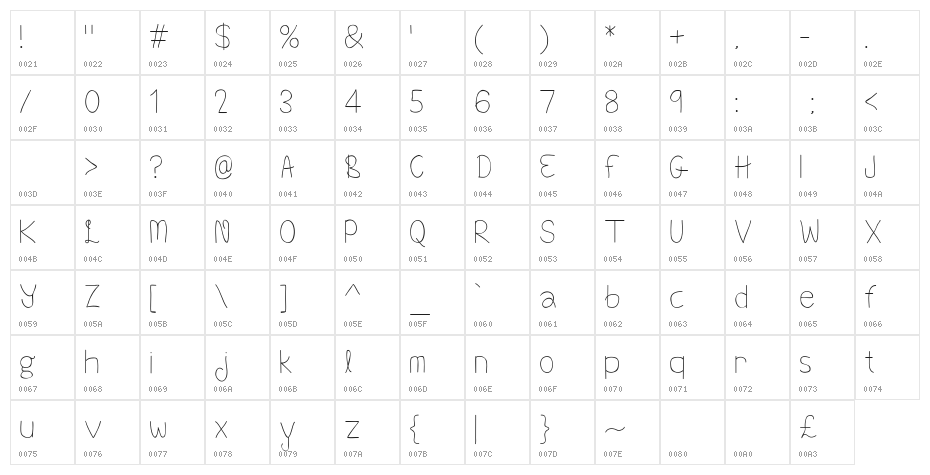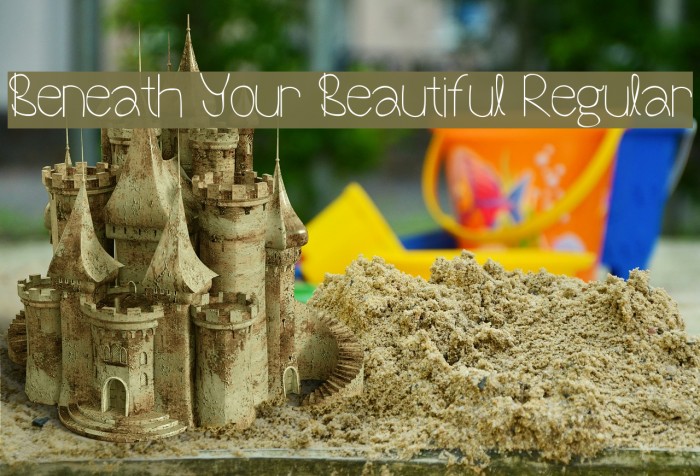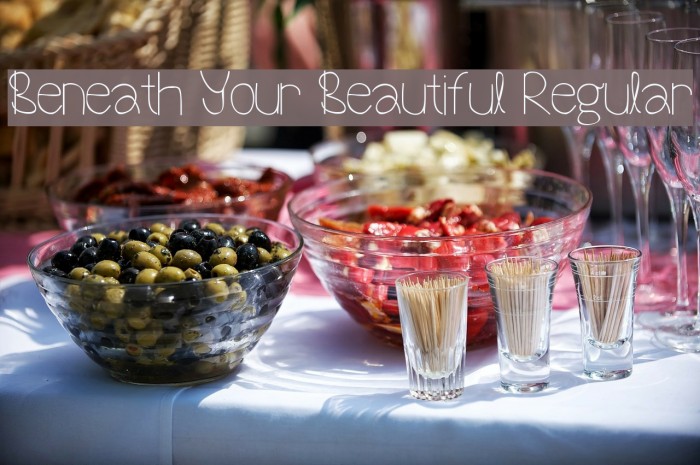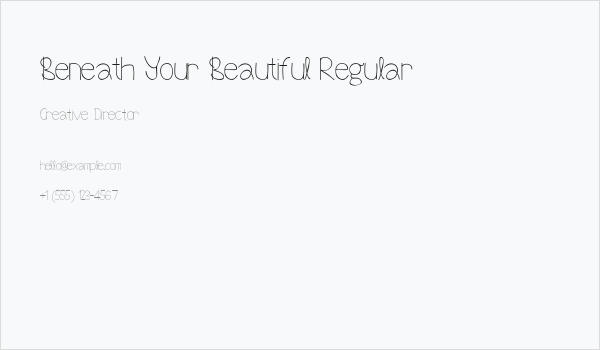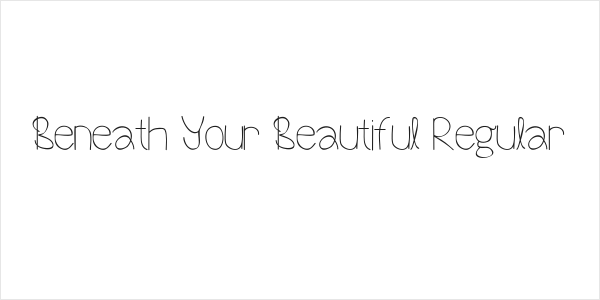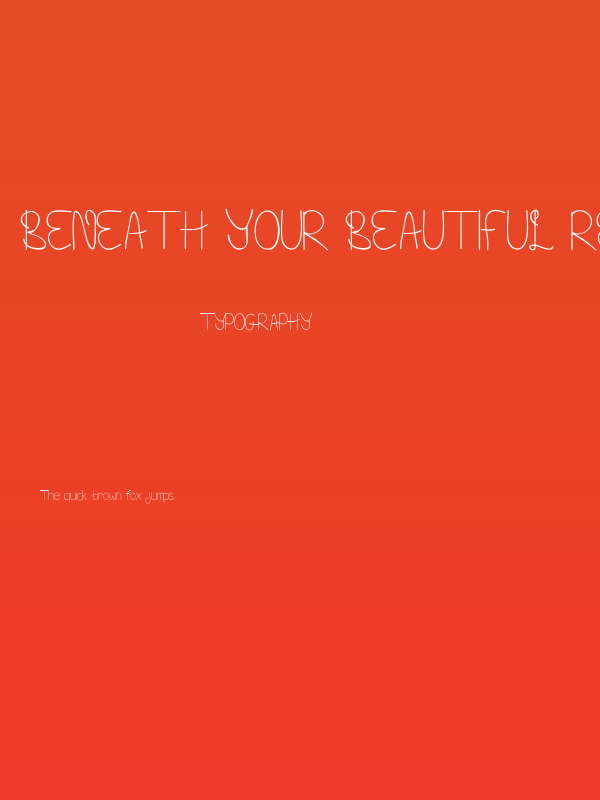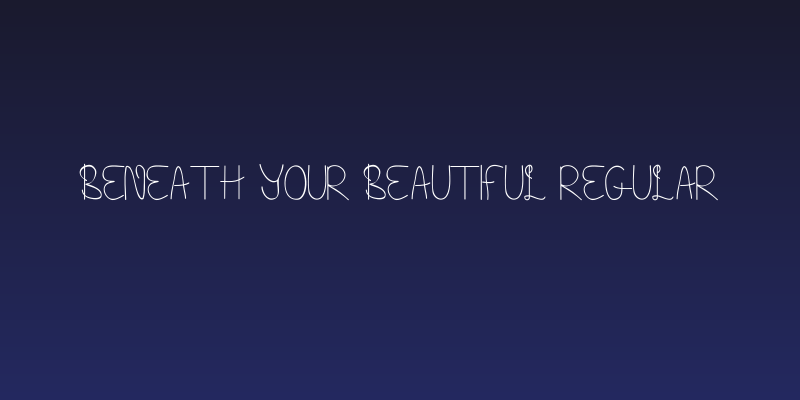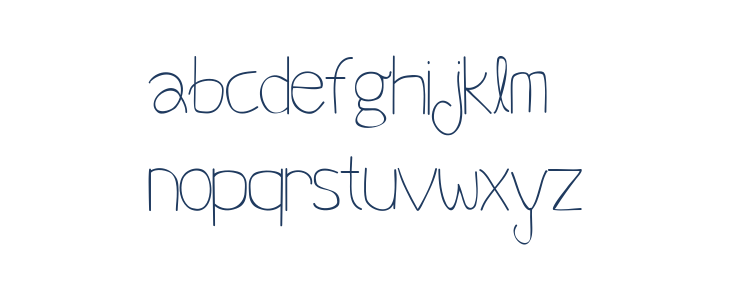
Beneath Your Beautiful Regular Font
Beneath Your Beautiful Regular Description
This font features a whimsical and playful design with a handwritten style. The characters are thin and elongated, giving a delicate and airy appearance. The strokes are consistent in width, providing a uniform look across all characters. The uppercase letters have a unique flair with some letters incorporating loops and curves that add to the font's charm. The lowercase letters maintain a similar style, with a slightly more casual feel. Numbers and special characters are designed to match the overall aesthetic, ensuring a cohesive look. This font is perfect for projects that require a touch of elegance and creativity.